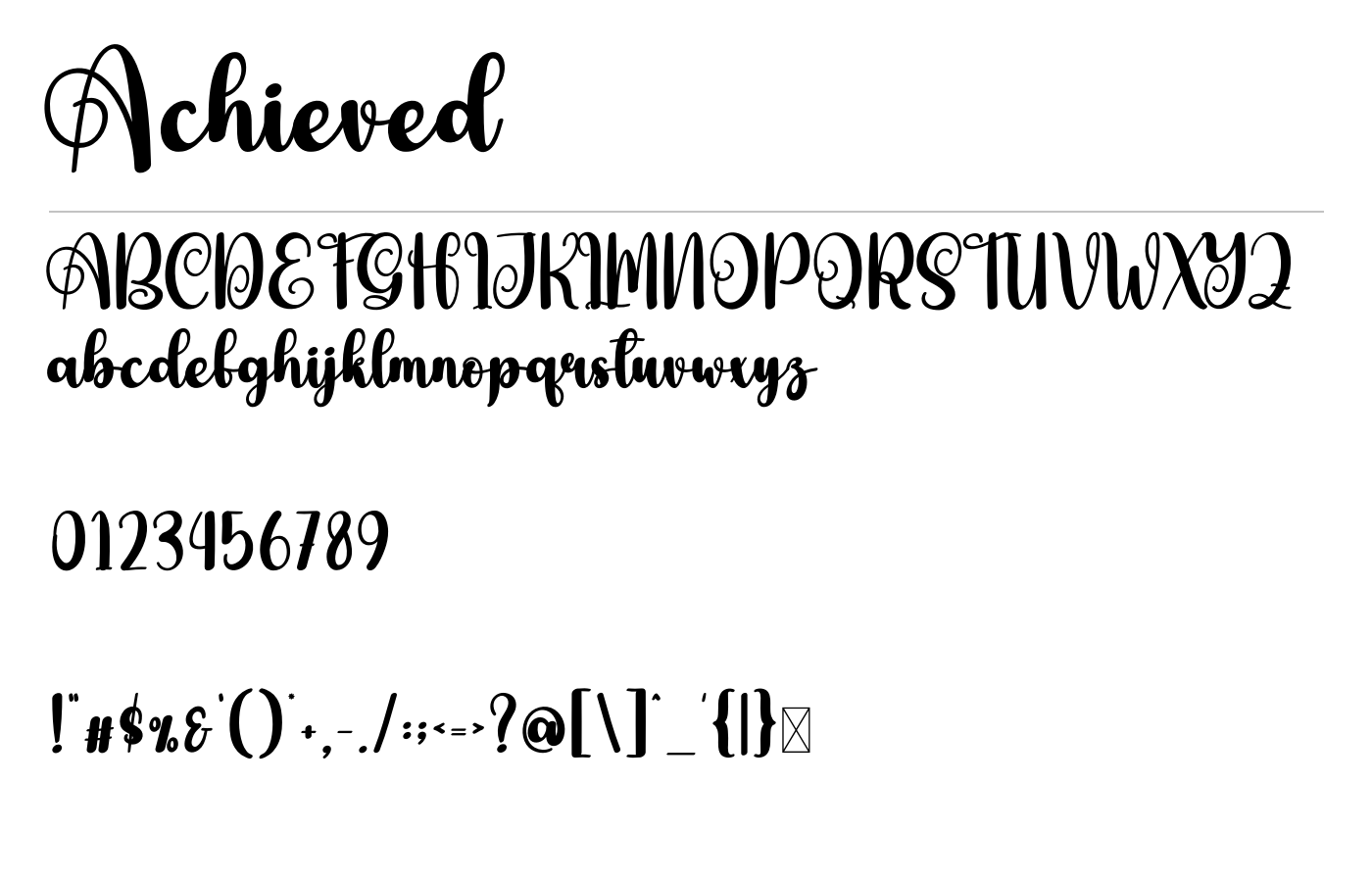
Achieved Font is a playful and decorative script typeface with a lively, hand-lettered feel, characterized by its bold strokes and swirling, ornate uppercase letters contrasted with a smoother, more readable lowercase. Its expressive style lends a whimsical and artistic personality, making it ideal for creative branding, invitations, headlines, and packaging where a touch of elegance and charm is desired. This font works well in designs that want to convey warmth and individuality while remaining eye-catching and distinctive.
Achieved Font
About Achieved Font